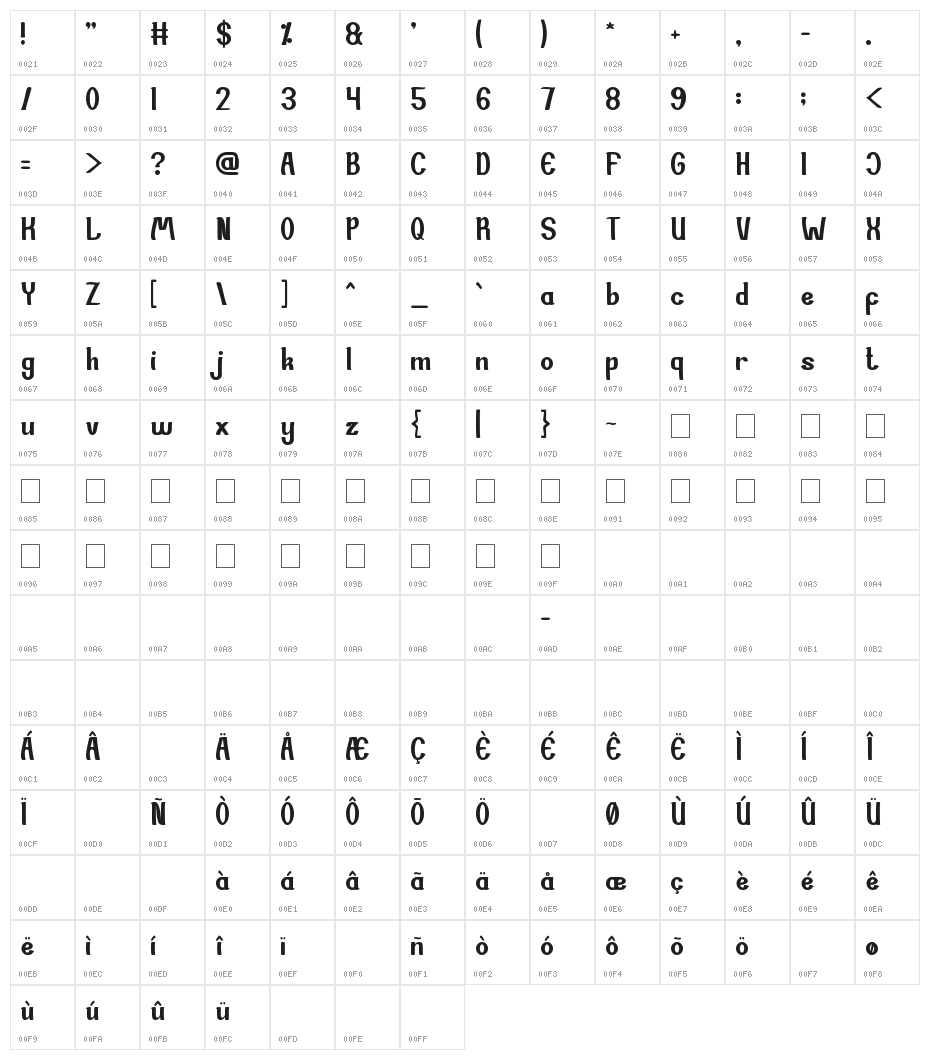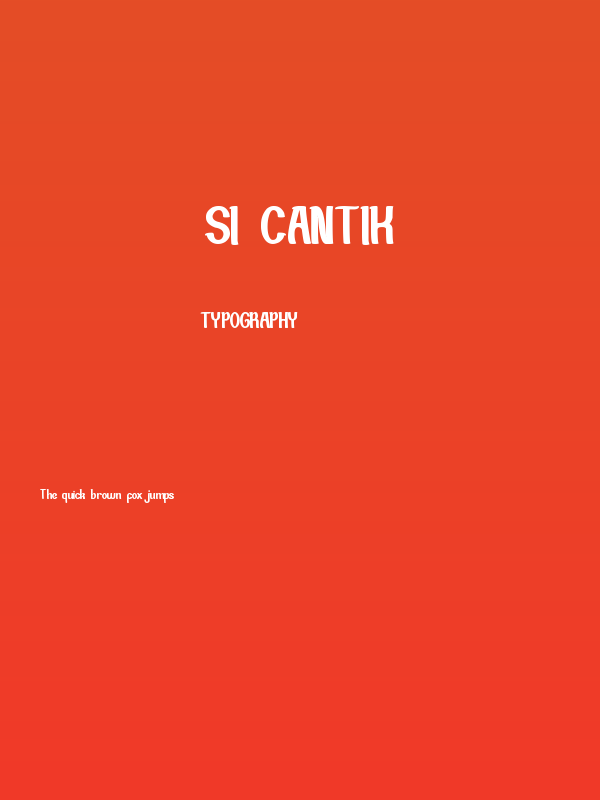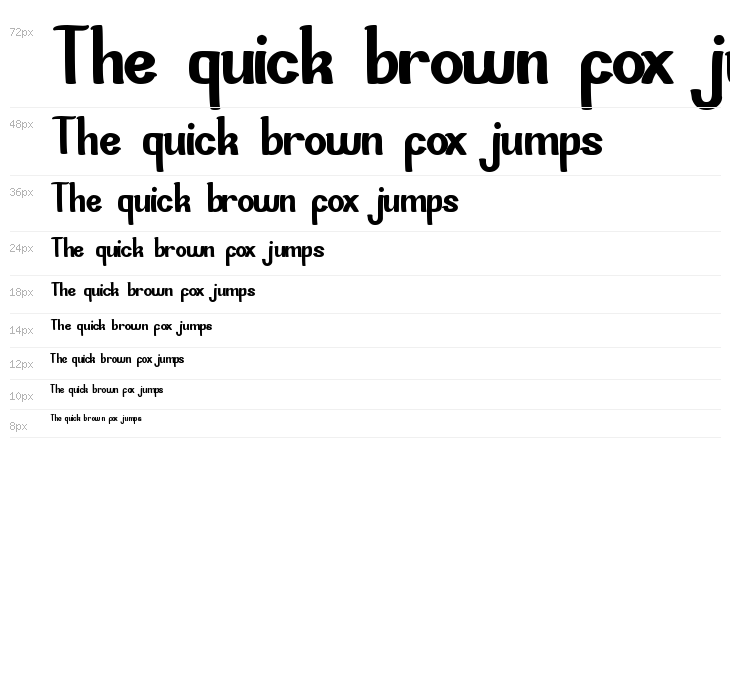
Si Cantik Font
Si Cantik Description
This font features a playful and bold style with a handwritten appearance. The characters are rounded and slightly irregular, giving it a casual and friendly look. The uppercase letters are tall and prominent, while the lowercase letters maintain a consistent flow with a slightly whimsical touch. The numerals are bold and easy to read, complementing the overall style. Special characters are well-integrated, maintaining the font's playful aesthetic. This font is ideal for projects that require a fun and approachable vibe.
SI-CANTIK UPPERCASE
SI-CANTIK LOWERCASE
SI-CANTIK OTHER CHARS
| Proposed Projects | Great for children's books, playful branding, greeting cards, and social media graphics. |